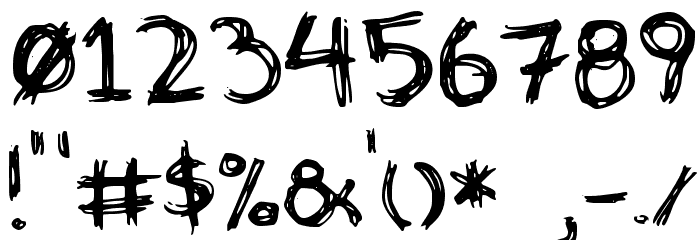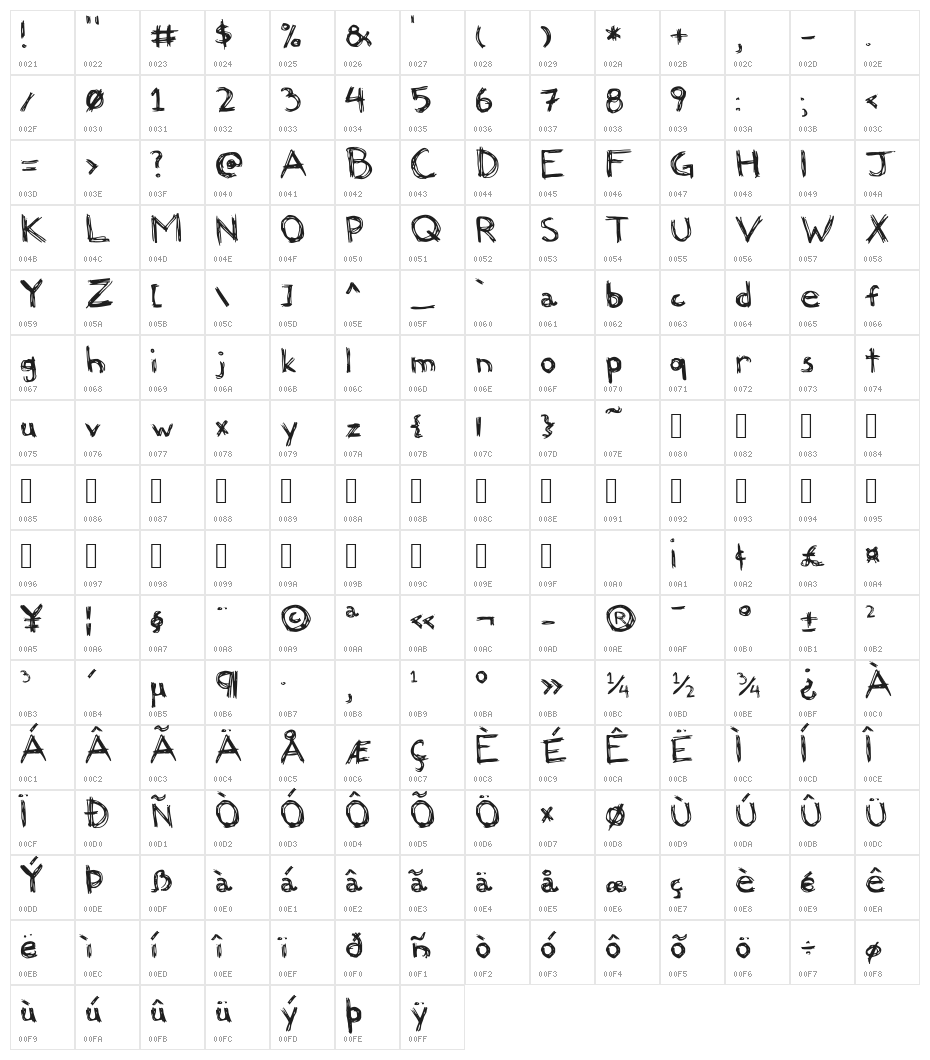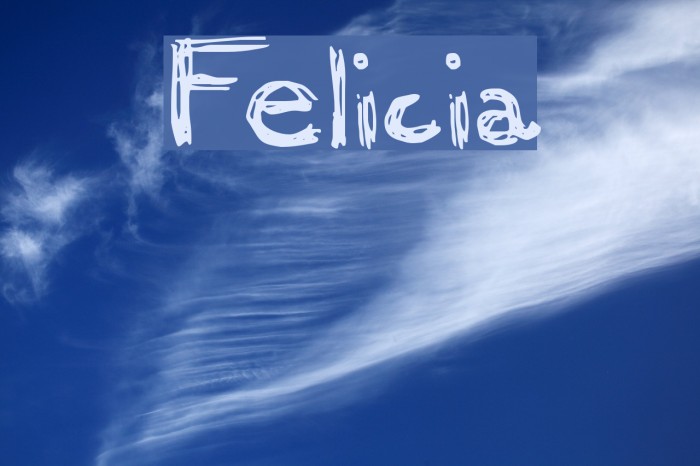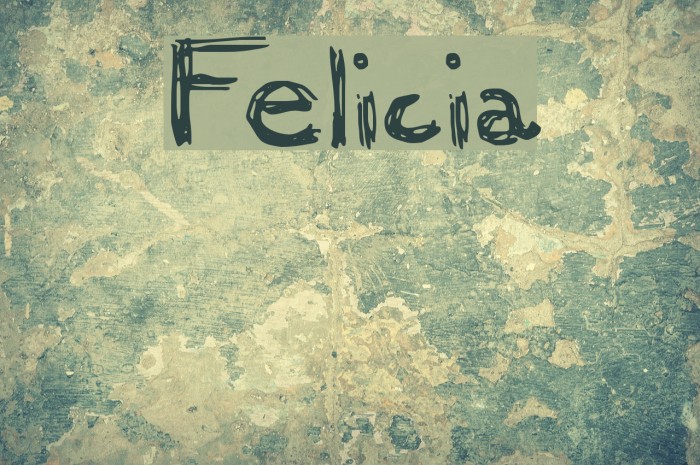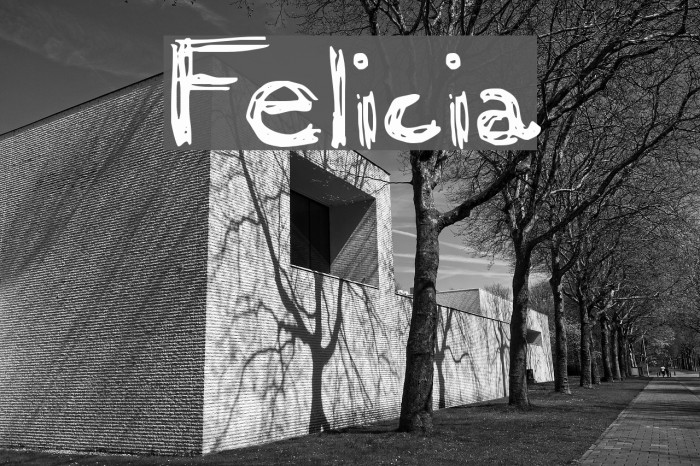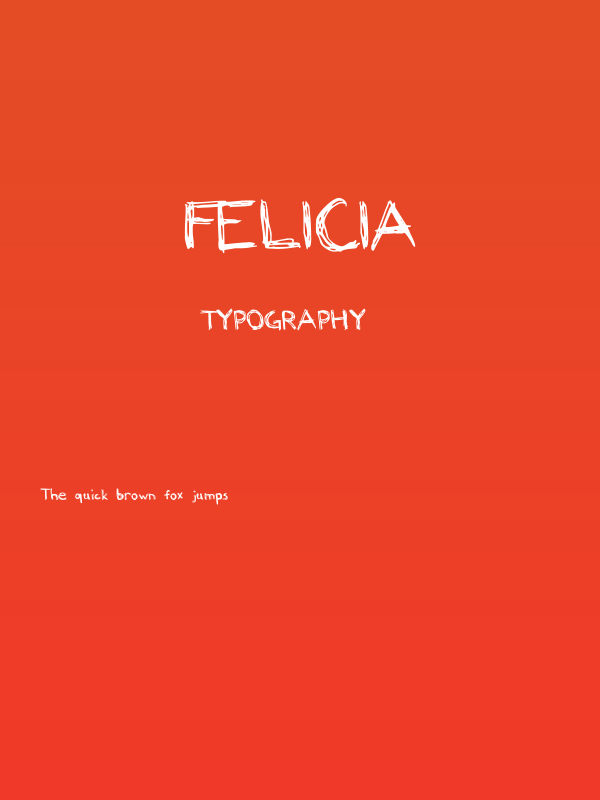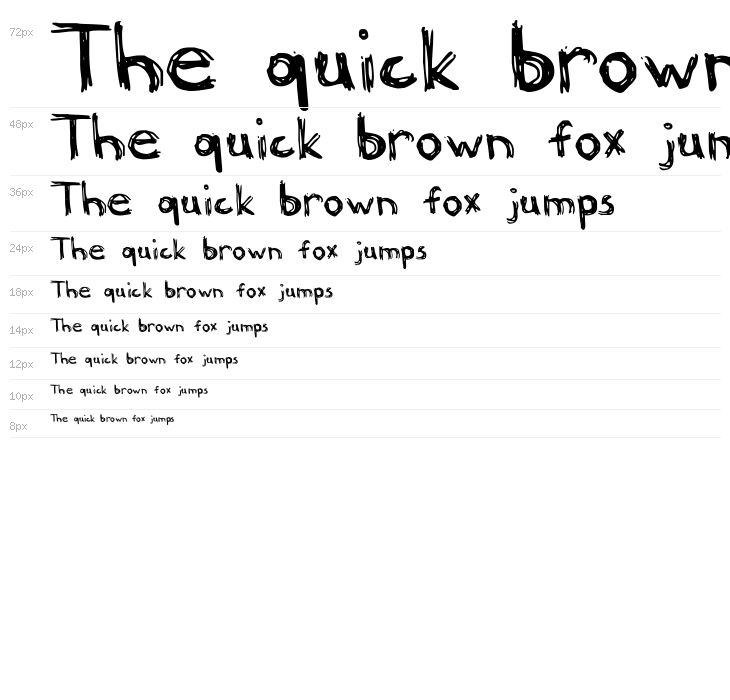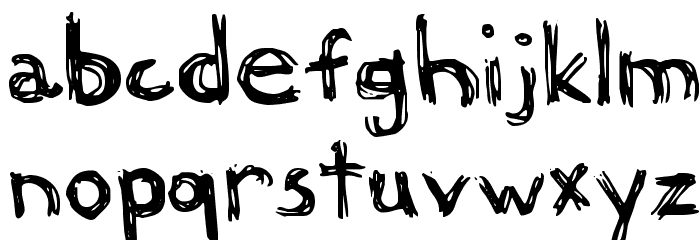
Felicia Font
Felicia Description
This font exhibits a highly expressive and dynamic style, characterized by its rough, hand-drawn appearance. The letters are irregular and feature jagged edges, giving them a raw and energetic feel. The strokes vary in thickness, adding to the font's chaotic and spontaneous look. This style is reminiscent of graffiti or street art, making it stand out with its bold and unconventional design. The uppercase and lowercase letters maintain a consistent aesthetic, while the numbers and special characters follow the same rugged theme, ensuring a cohesive overall appearance.
| Use Case | Logos, Posters, Headlines |
| Proposed Projects | Ideal for projects that require a bold and edgy look, such as streetwear branding, music album covers, or urban-themed posters. |